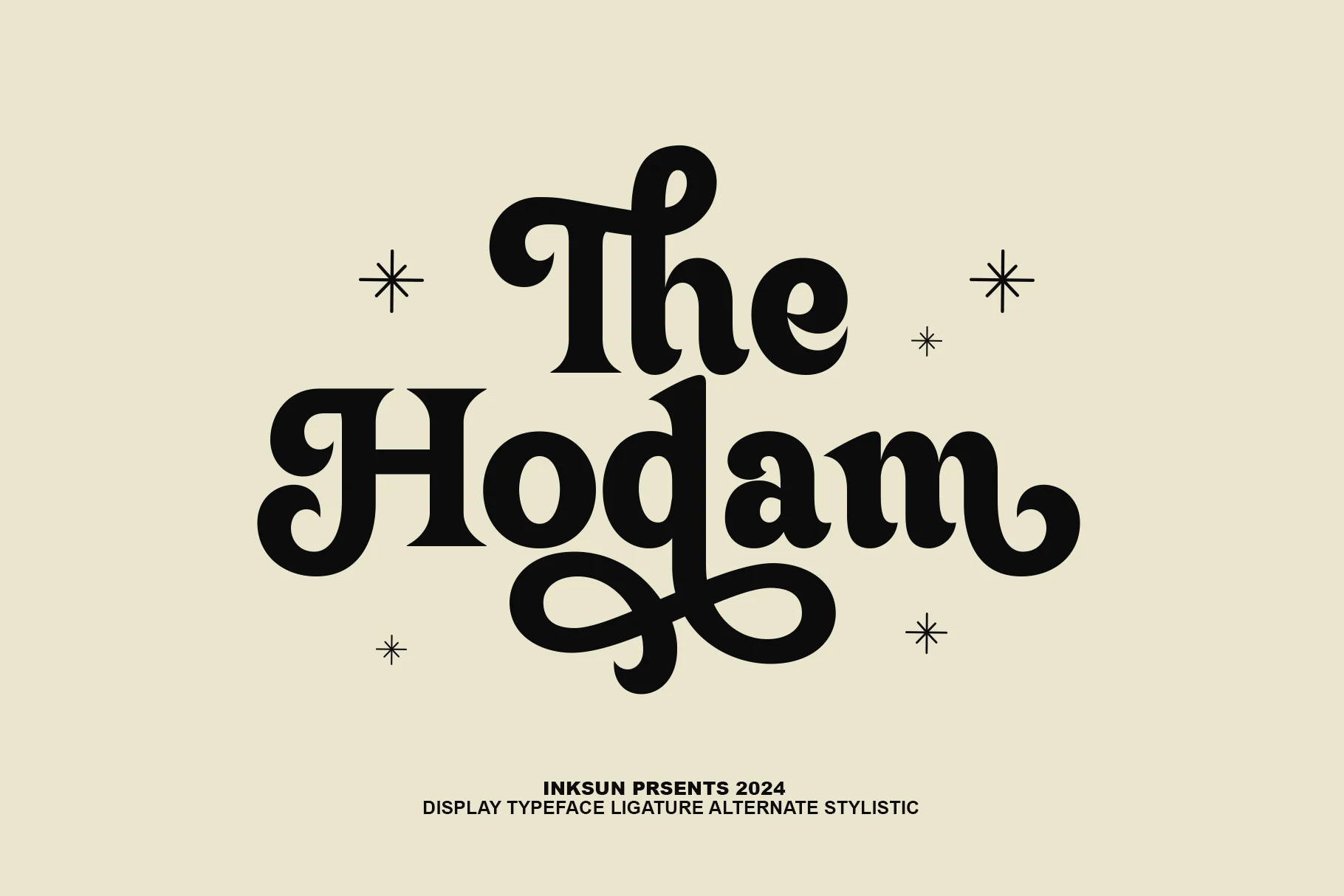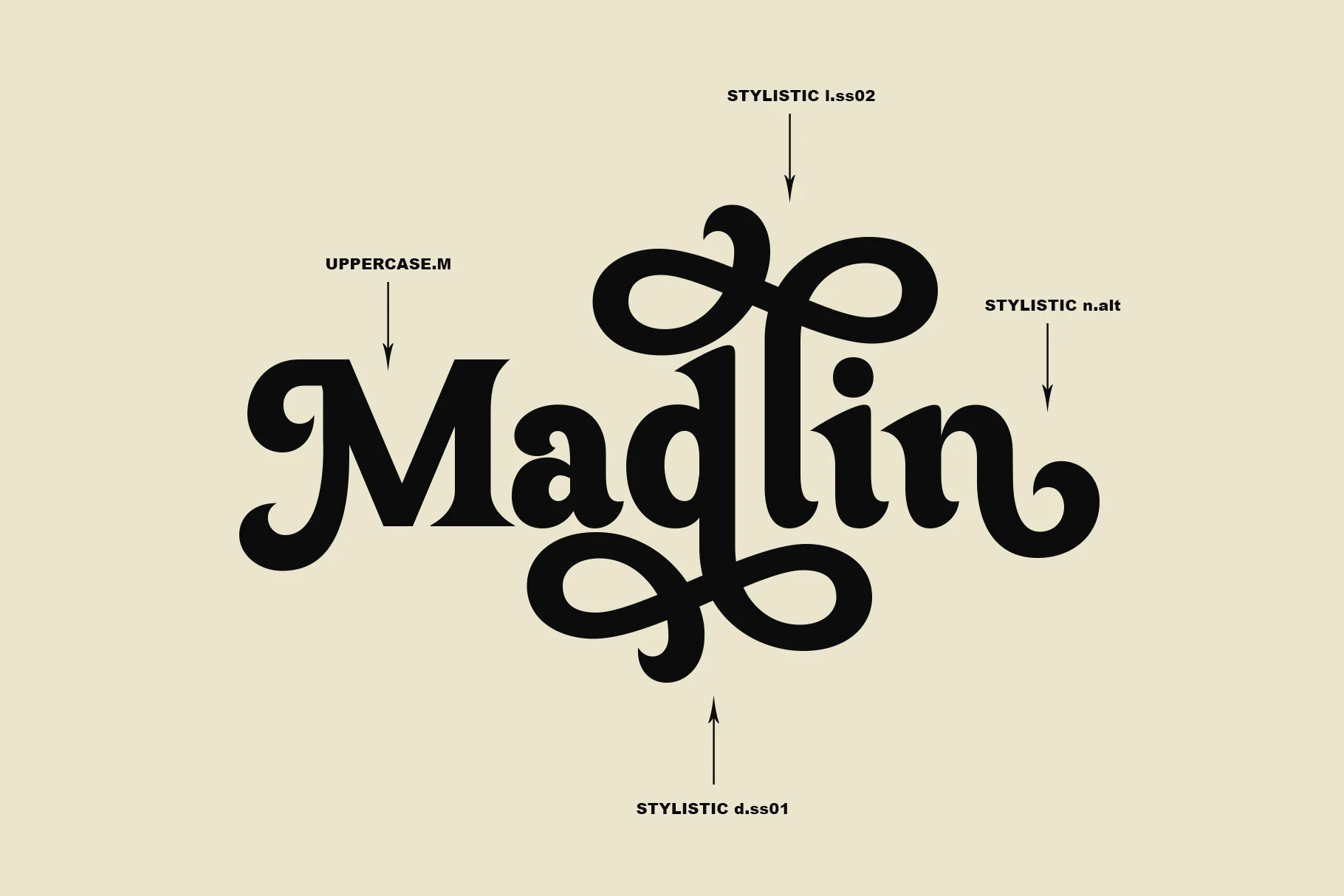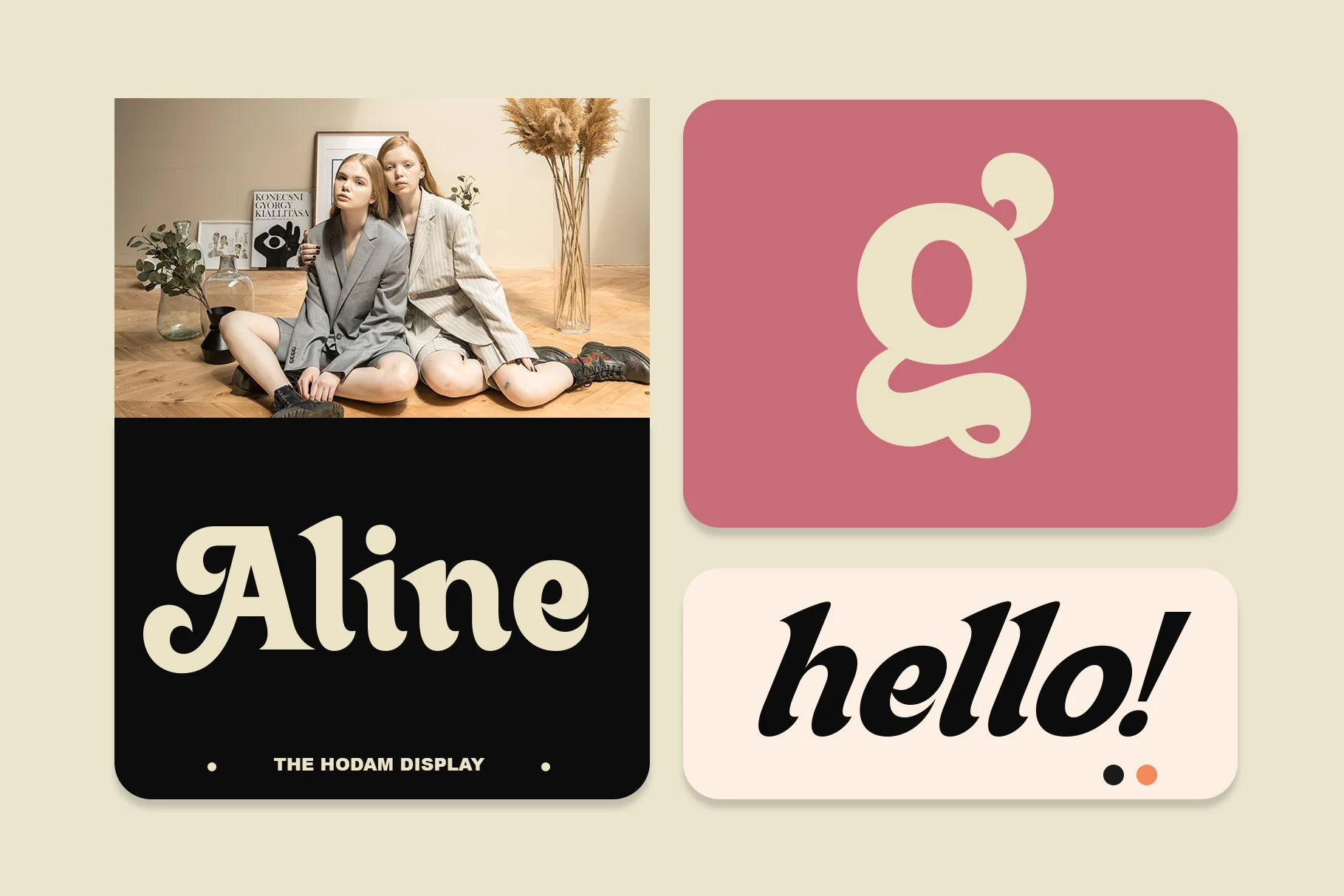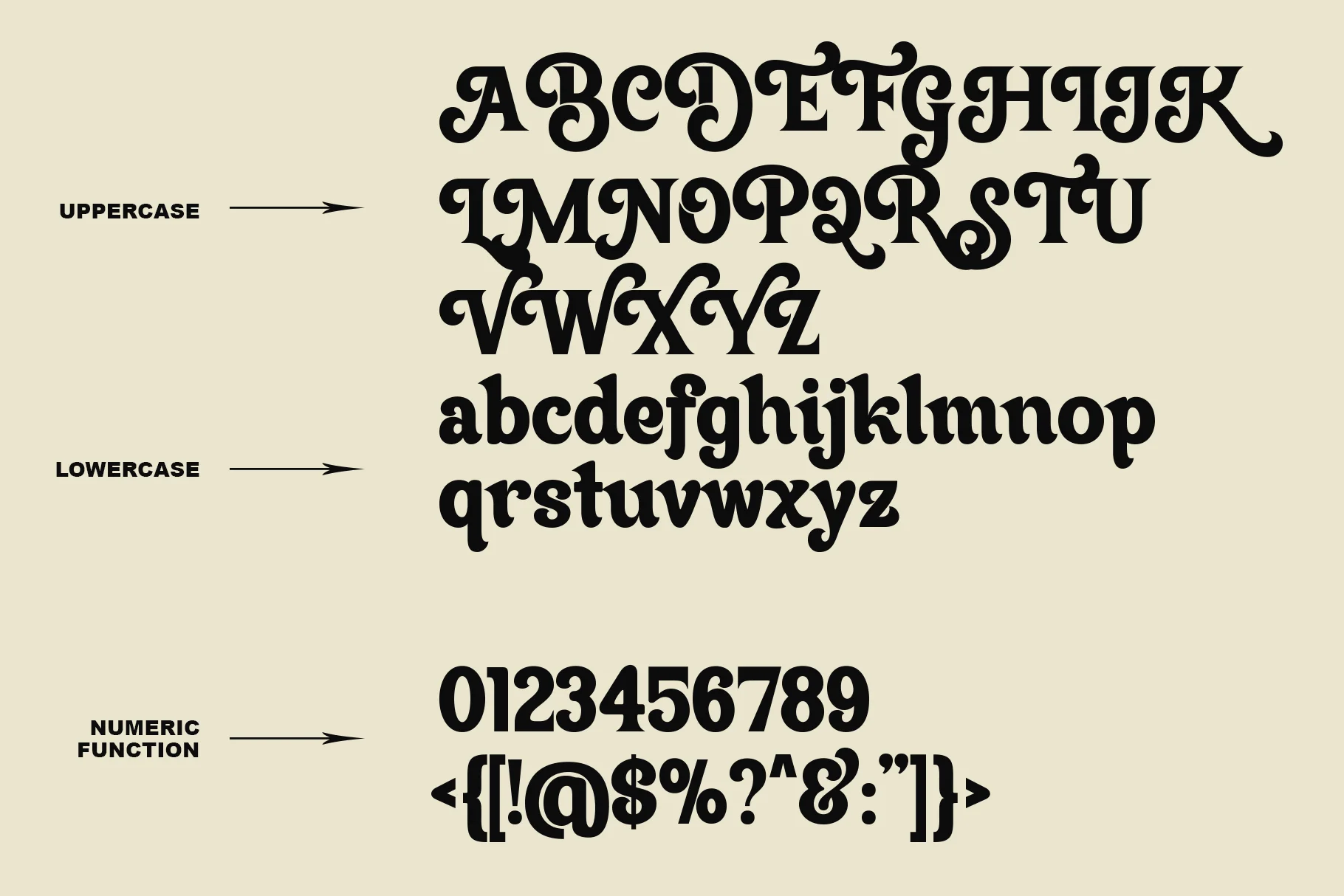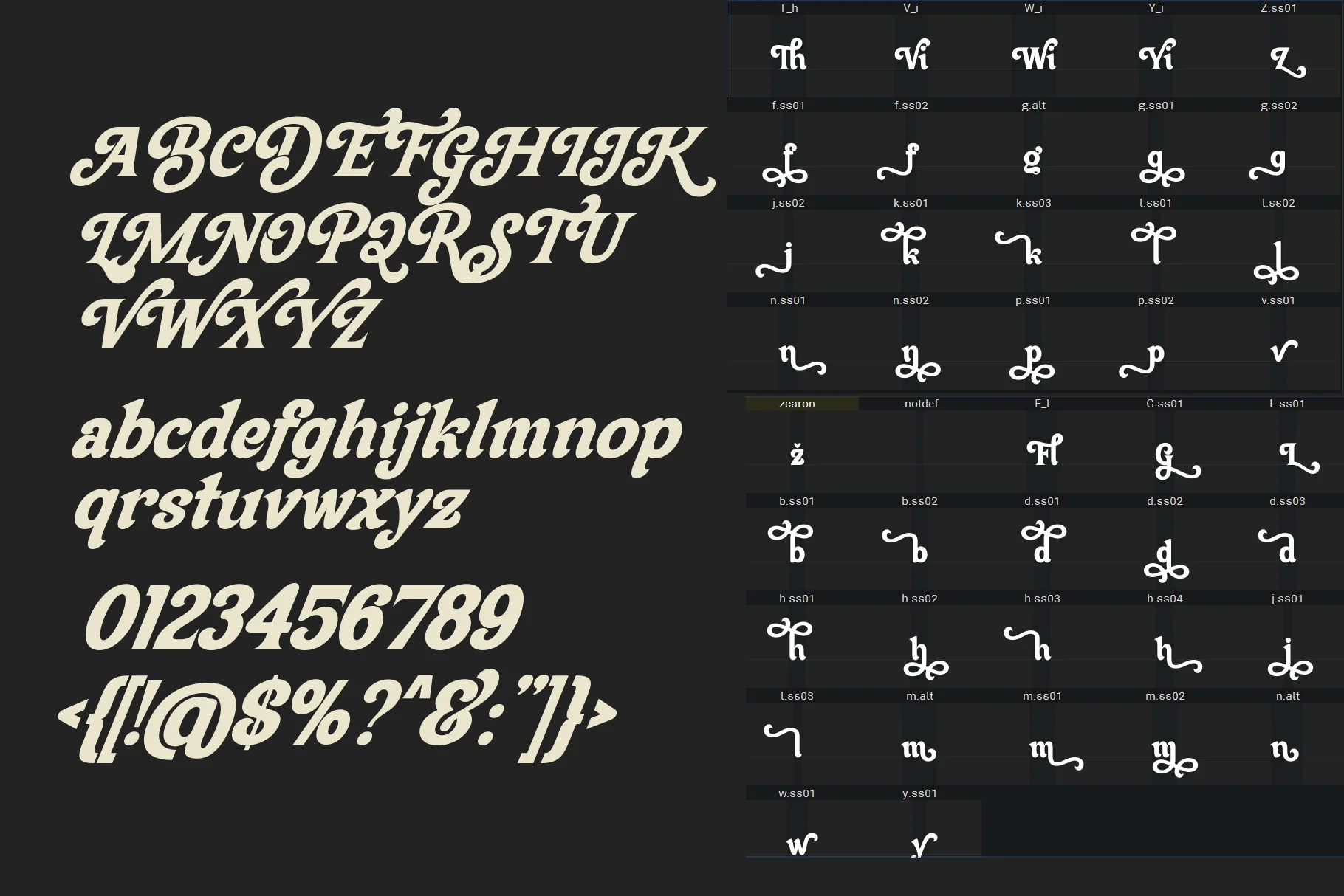
The Hodam
The Hodam is a display serif typeface with a classic, elegant, and artistic touch. This font features soft letterforms with gentle curves, balanced bold-thin contrast, and ligature details and stylistic alternates that enrich the visual appearance.
The Hodam's strongest characteristic lies in its flowing swashes and letter tails, especially on capital letters and certain characters, creating a vintage, sophisticated, and handcrafted feel. The typographic style feels warm and classy, suitable for designs that aim to convey a heritage, editorial, and premium feel.
Despite its decorative details, The Hodam maintains good legibility at display sizes, making it ideal for use as a central element in design compositions.